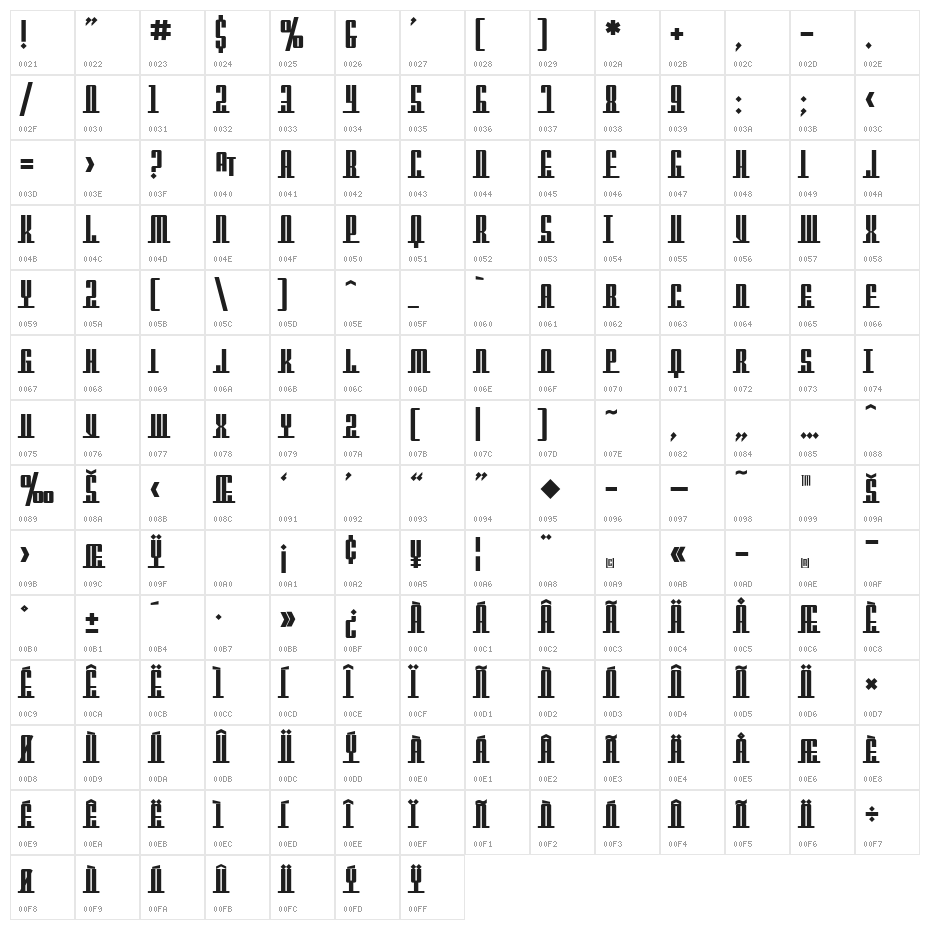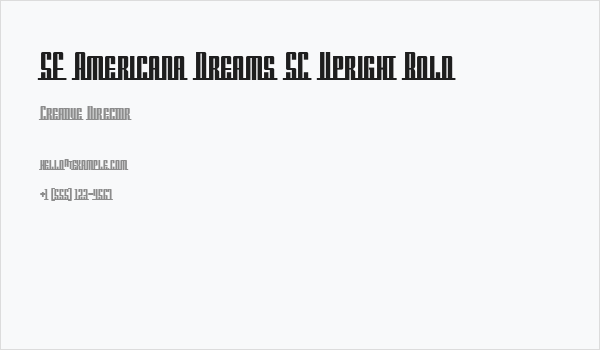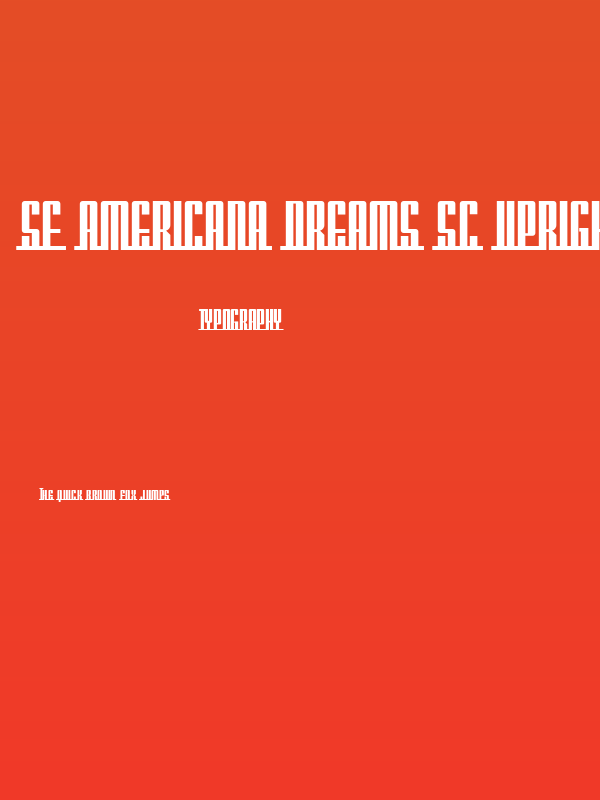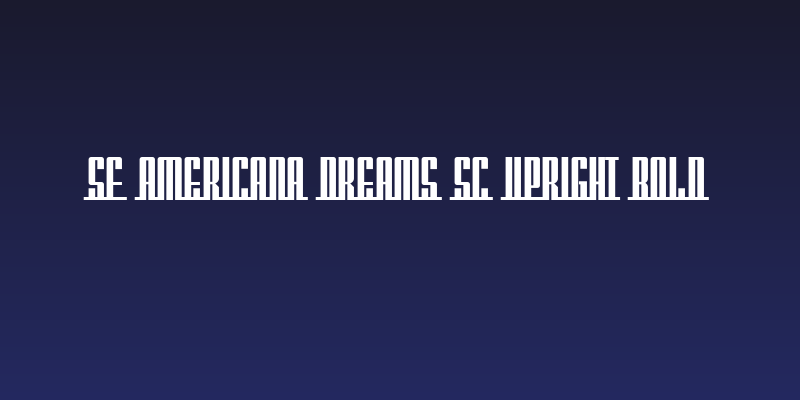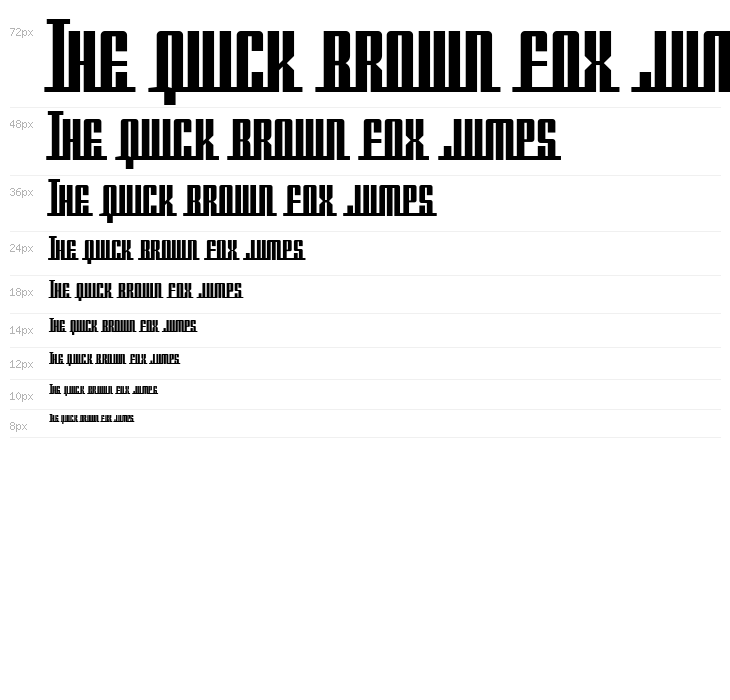
SF Americana Dreams SC Upright Bold Font
SF Americana Dreams SC Upright Bold Description
This font features a bold, geometric design with a strong vertical emphasis. The characters are tall and narrow, with consistent stroke widths that give it a uniform appearance. The uppercase letters are particularly striking, with sharp angles and a modern aesthetic. The numbers and special characters maintain the same boldness and clarity, making them easily readable. The overall style is reminiscent of vintage Americana, yet it retains a contemporary edge that makes it versatile for various design applications.
| Proposed Projects | Ideal for branding projects, poster designs, and headlines that require a strong visual impact. |